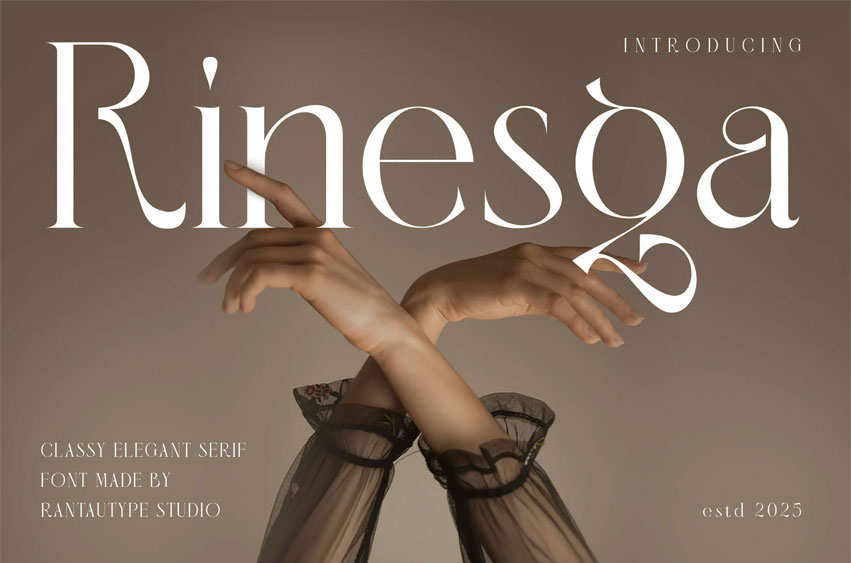
Rinesga Font
Rinesga Font is classy serif font made by rantautype studio inspired by the golden era of print and editorial design, a Classy Serif Font blends the aesthetics with a contemporary twist. Rinesga captures the beauty of traditional typography refined for the modern age. It embodies sophistication, charm and a quiet confidence that never fades with time.
Rinesga is a perfectly choice for any creative endeavor, creating, modern, lifestyle design such as logotype, title, cover, branding, invitations, wedding designs, display and magazine, social media posts, advertisements, printed quotes, product packaging, corporate brand, product designs, labels, photography, watermarks, special events and any other project with elegant touch.